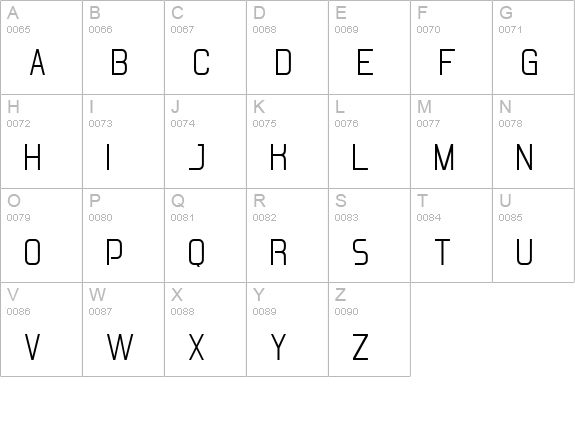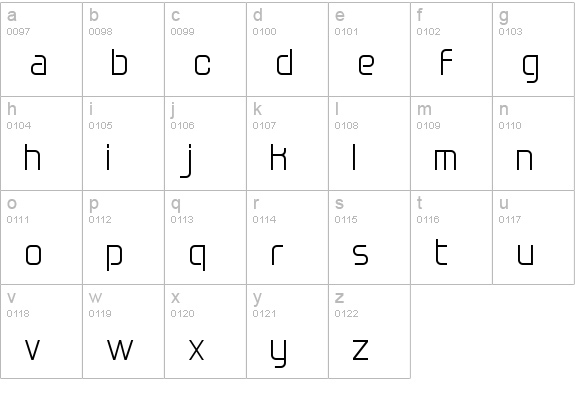
BN Deep Blue Font Details
Introducing BN Deep Blue font, a stunning display typeface that exudes elegance and sophistication. With its sleek, modern design and clean lines, this font is perfect for adding a touch of class to any project. The sharp angles and unique letterforms of BN Deep Blue make it stand out from the crowd and grab the viewer's attention. But the best part? BN Deep Blue is available for free download at FontsMarket.com! That's right, you can get your hands on this beautiful font without spending a dime. Whether you're working on a branding project, a website design, or any other creative endeavor, BN Deep Blue is sure to elevate your work to the next level. Don't miss out on this opportunity to enhance your designs with the stylish and sophisticated BN Deep Blue font. Download it for free today at FontsMarket.com and start creating eye-catching typography that will leave a lasting impression.